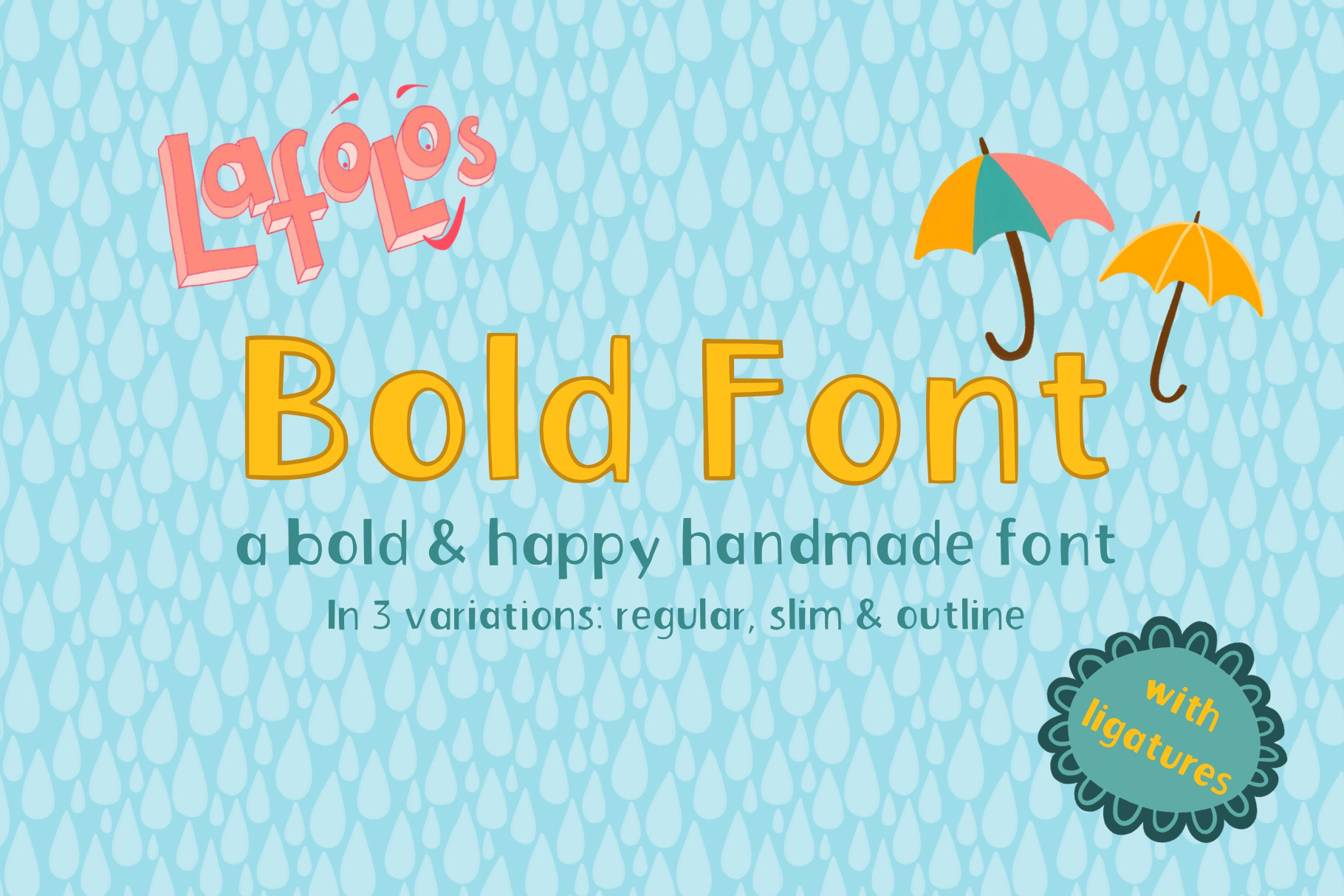
LAFOLOs Bold Font
A fun and happy display font. I drew each letter and every type myself to bring together a lovely typeface for your design projects. The set comes in 3 variations: Regular, Bold & Outline.
Use the font to create individual designs for headlines in chapter books, greeting cards, notebooks, stickers and so much more.
To add another twist in your Procreate designs: Use LAFOLOs Bold Font outline and fill the inside using the magic wand tool.